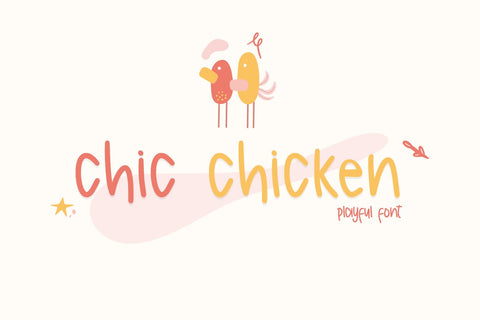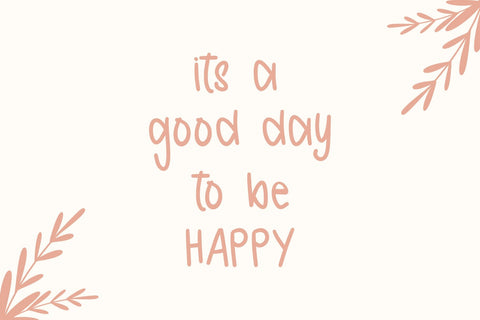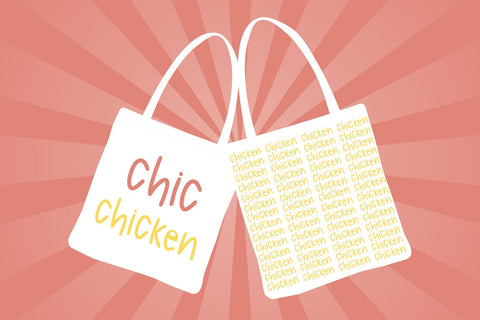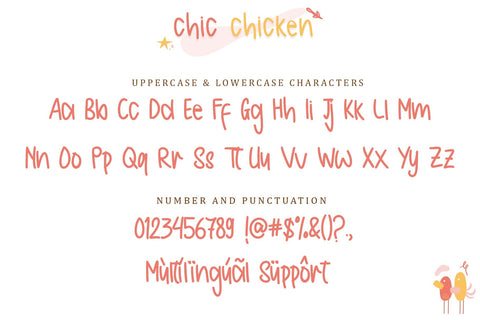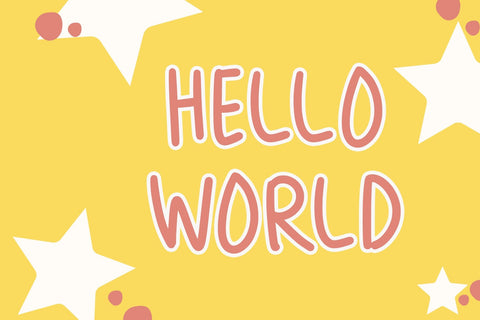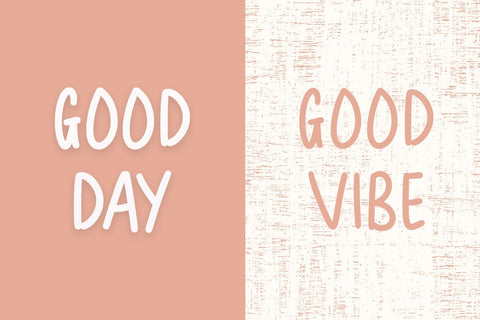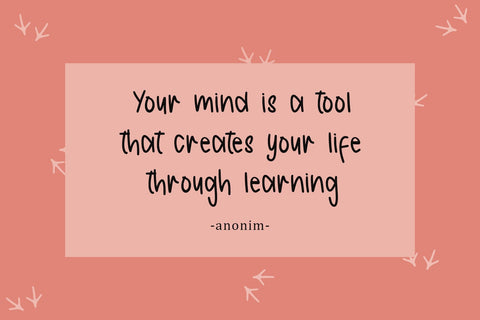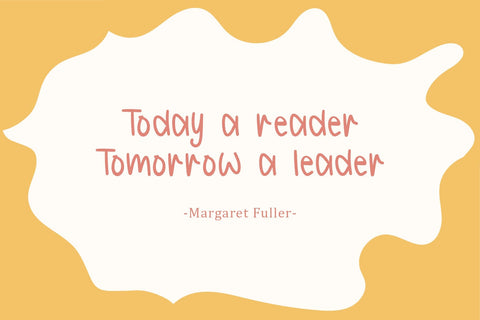
Chic Chicken - Playful Font
Chic Chicken is a delightful and whimsical handwritten typeface that adds a playful charm to any design. With its lively strokes and organic feel, it brings a sense of freshness and joy. Ideal for food packaging, children’s books, greeting cards, and anything needing a touch of fun and creativity.